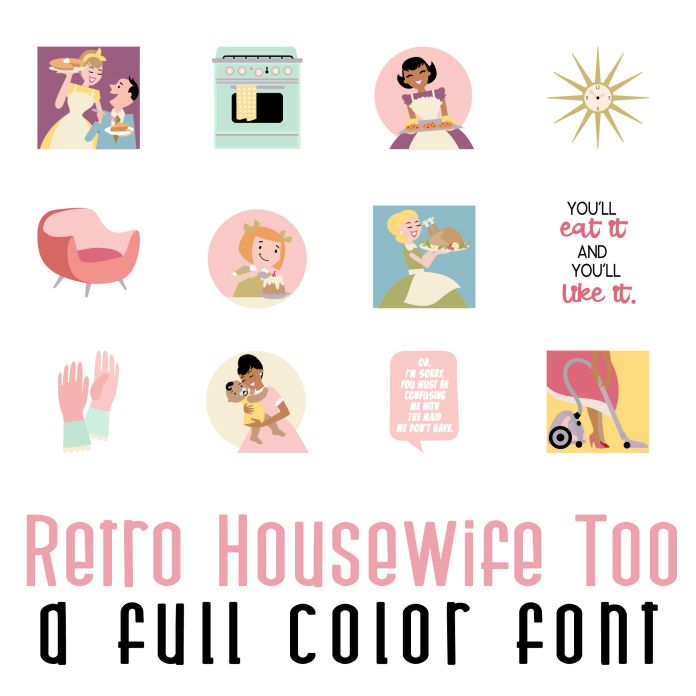
This fun full color font features 26 fun housewives and retro style imagery! Perfect for cards, crafts, parties, gifts, decor, planner stickers, classrooms, scrapbook pages, Mother's Day and more!